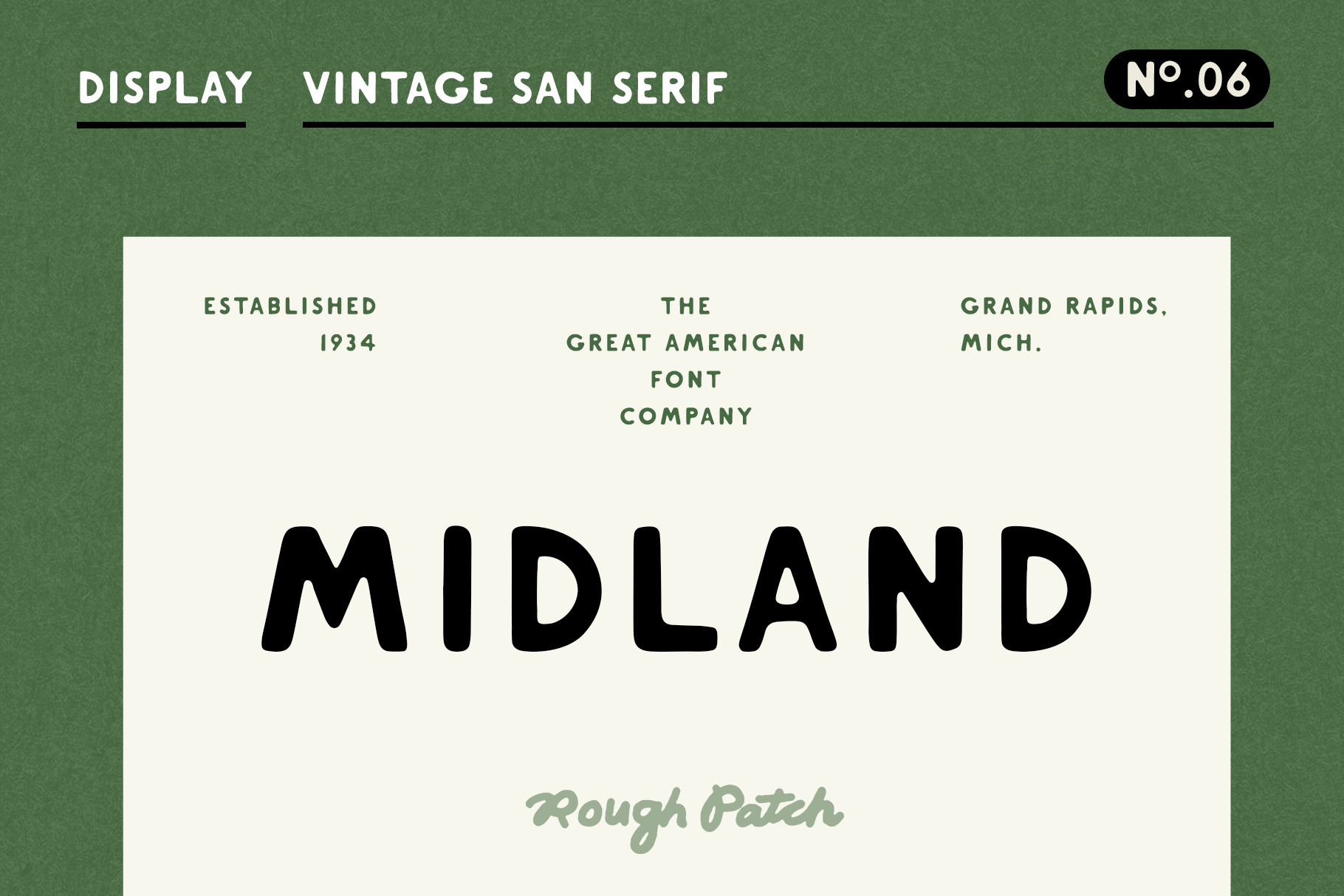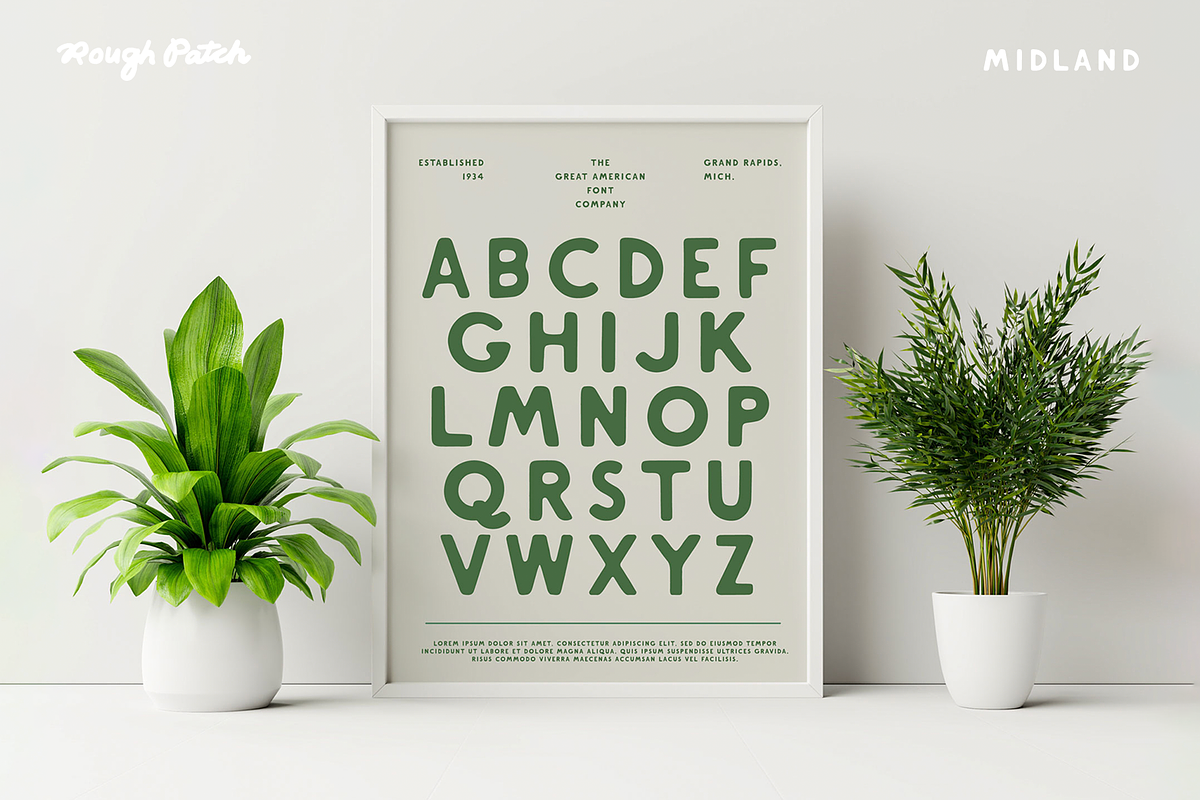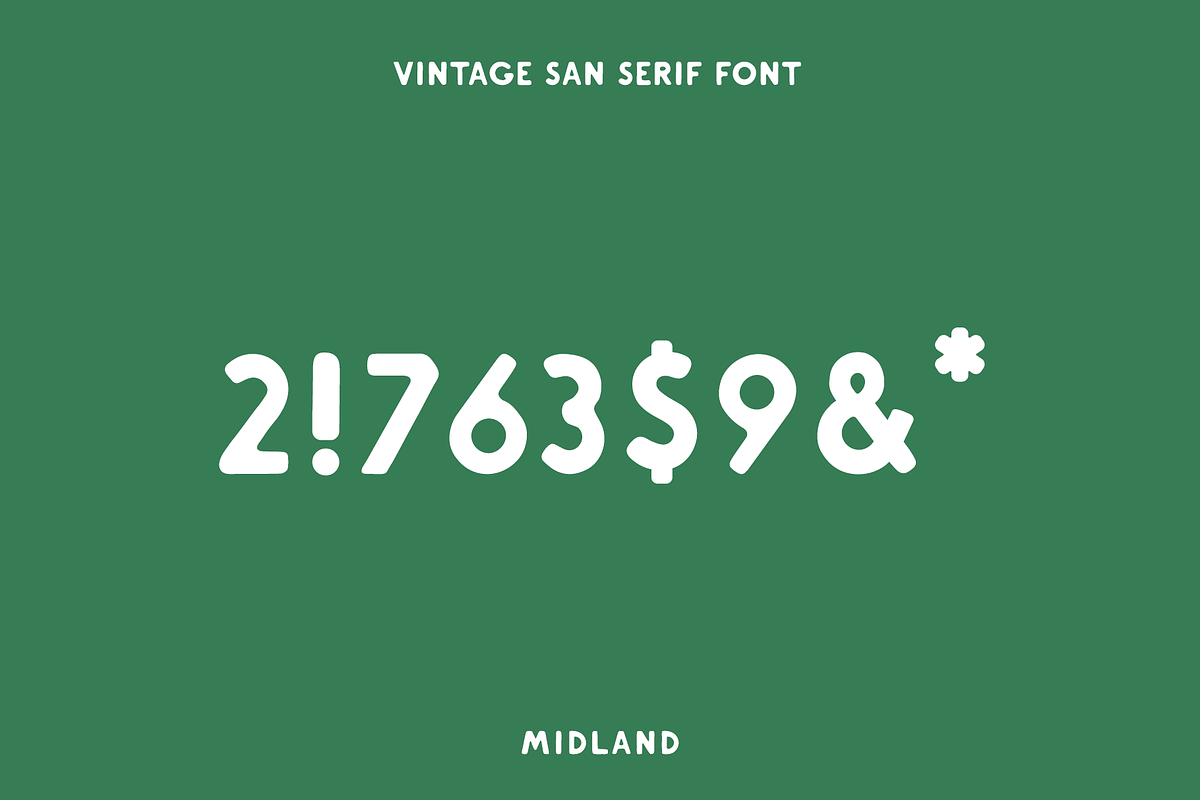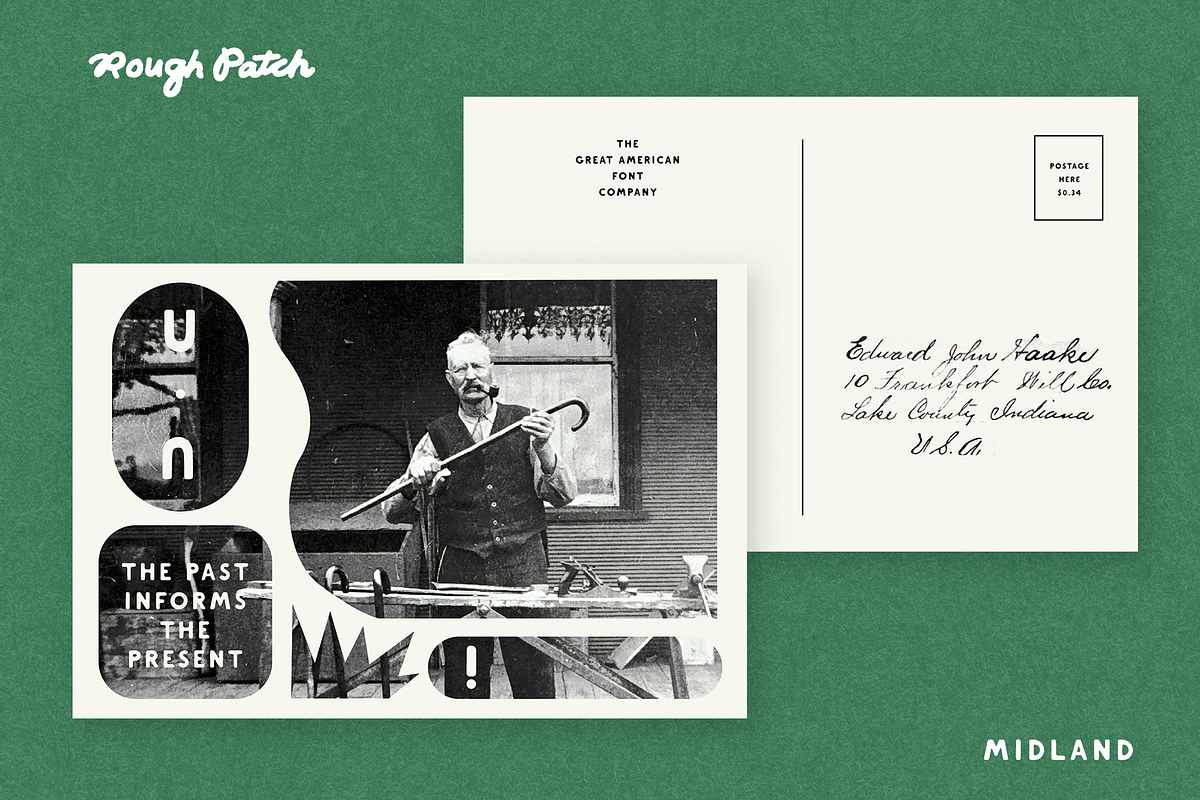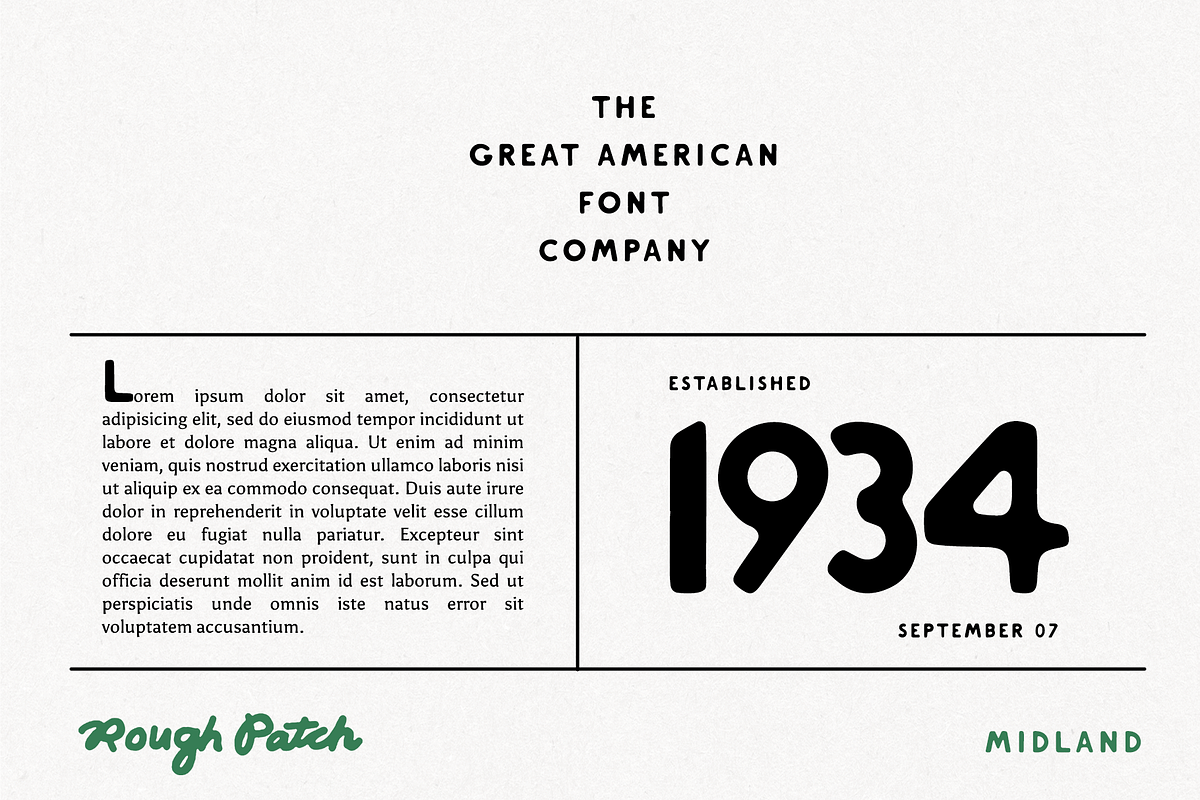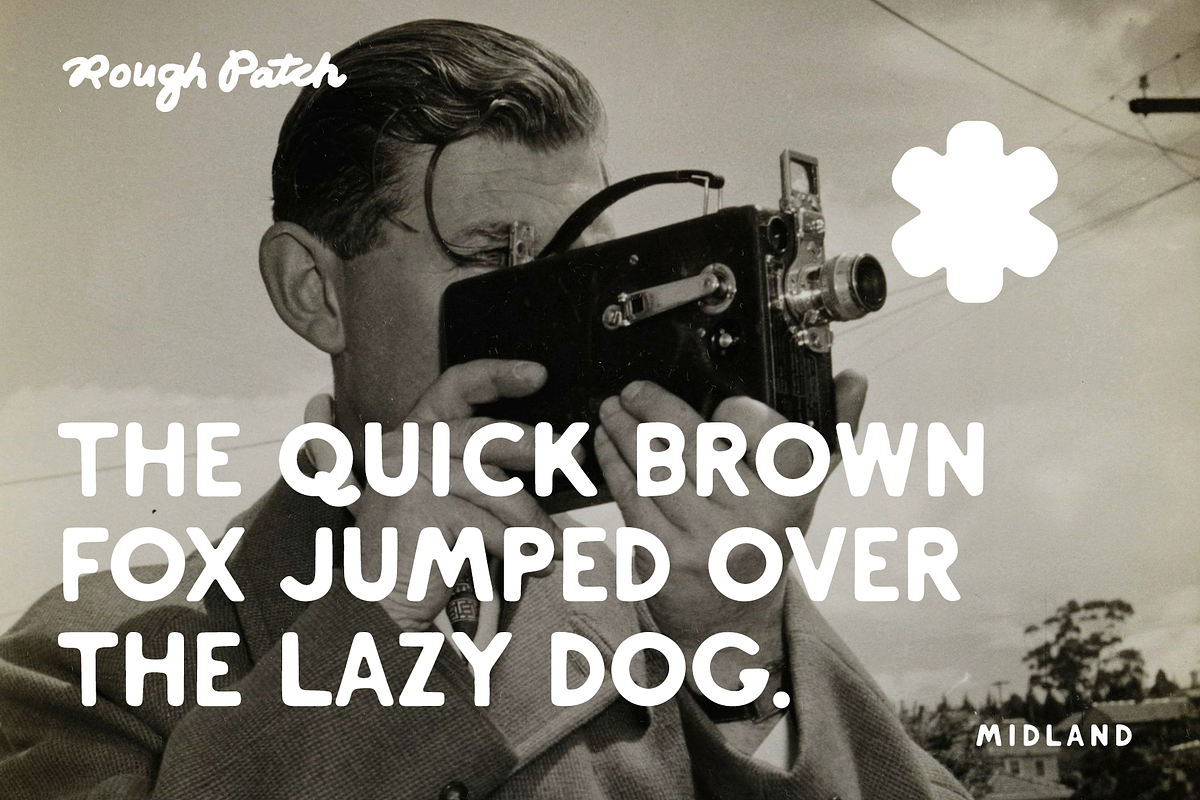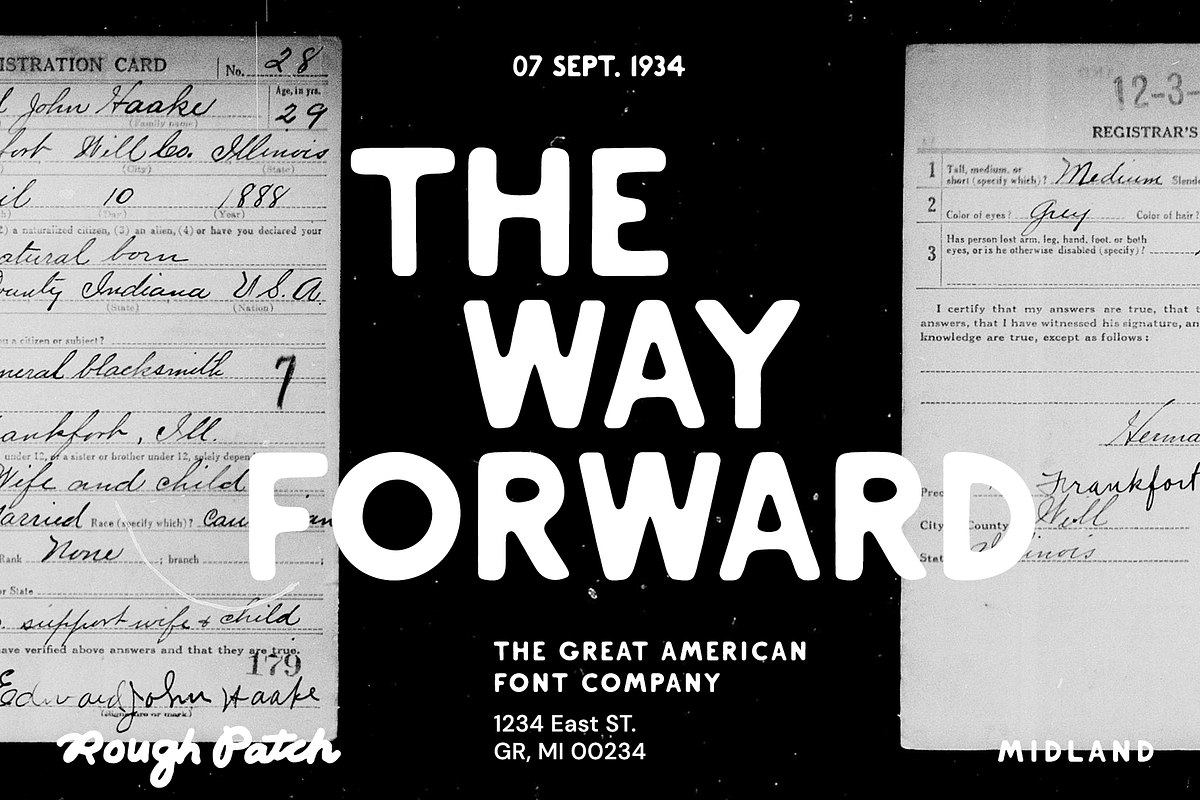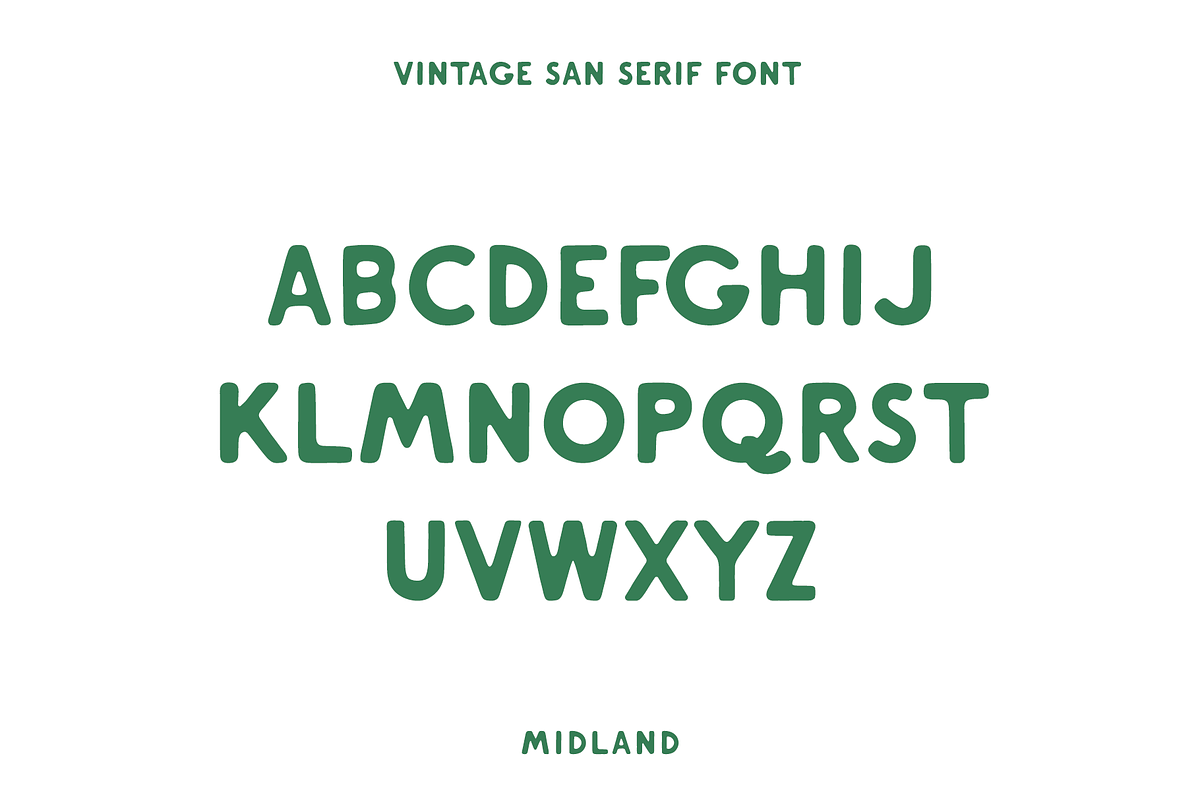
Midland | Vintage Sans Serif Font
Midland A sans serif font with vintage inspiration - more specifically inspired by Midland Antiques in Indianapolis, Indiana. Midland has a vintage flare that can only be described as 'the bee's knees'. Includes A-Z, numbers, & primary symbols. Great for logos, signs, titles, packaging, and whatever other dreams you have.
Designed and kerned with care.